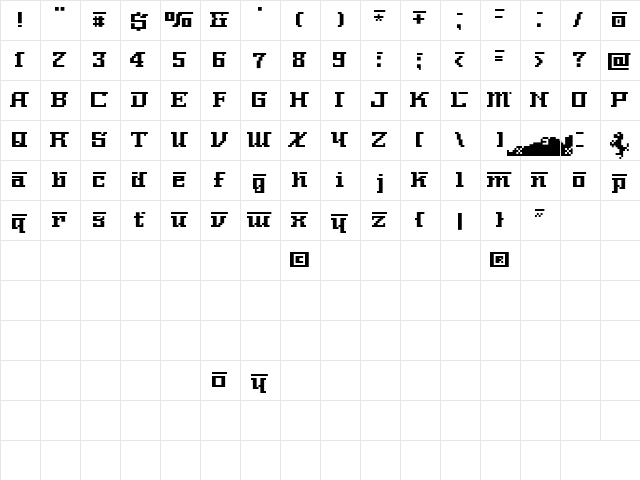
NerimaNumber Regular Font Preview
NerimaNumber Regular
Design Context for NerimaNumber Typeface
NerimaNumber takes a measured approach to typography — its balanced proportions and neutral character make it a reliable workhorse for both digital and print work.